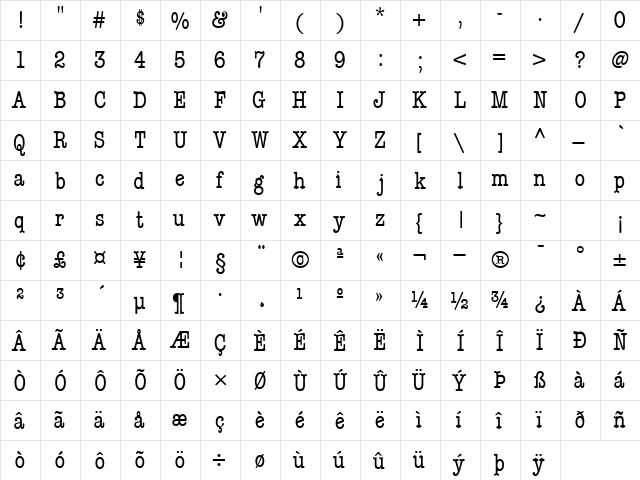
KeyboardCondAltSSK Regular Font Preview
KeyboardCondAltSSK Regular
Design Context for KeyboardCondAltSSK Typeface
KeyboardCondAltSSK is a composed and adaptable typeface that performs quietly and consistently across a wide range of design contexts. Its narrow stance lets it pack a punch even in space-constrained designs.